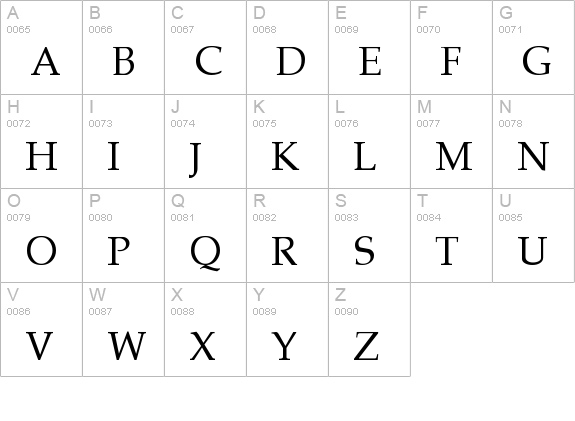
Palisade Regular is the standard, neutral variant in the Palisade typeface family \xE2\x80\x94 well suited to general body text, paragraphs, and standard typographic work.
Palisade Regular font is a timeless and versatile typeface that exudes elegance and sophistication. Its clean lines and classic proportions make it a perfect choice for various design projects, from branding and advertising to editorial and web design. With its balanced letterforms and carefully crafted details, Palisade Regular font strikes the perfect balance between modernity and tradition. The slightly condensed nature of the font gives it a compact and efficient appearance, making it ideal for headlines and display purposes. The versatility of Palisade Regular font extends to its extensive character set, which includes uppercase and lowercase letters, numerals, punctuation marks, and a wide range of special characters. This ensures that you have all the tools at your disposal to create captivating and stylish designs. One of the most remarkable aspects of Palisade Regular font is that it is available for free. You can easily download it from FontsMarket.com, a reputable online platform for high-quality fonts. This means that you can use Palisade Regular font in your personal and commercial projects without any restrictions, making it an invaluable asset for designers and creatives. Whether you're designing a logo, a poster, a website, or any other visual communication, Palisade Regular font will add a touch of sophistication and professionalism to your work. Its timeless appeal and freely available nature make it a must-have font in your design toolkit. Download Palisade Regular font today and elevate your designs to new heights.